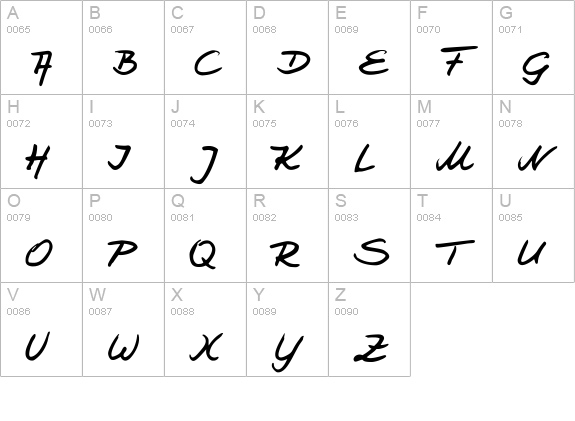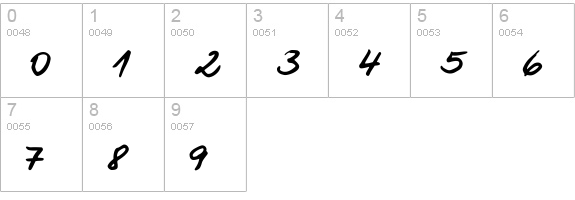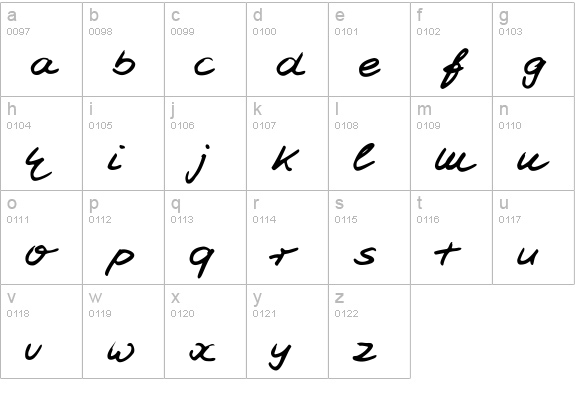
Jesco7 Handwriting Font Details
Jesco7 Handwriting font is a charming and whimsical typeface that adds a personal touch to any project. With its unique handwritten style, this font brings a sense of warmth and authenticity to your designs. Each letter is carefully crafted to create a natural and flowing look, perfect for adding a human touch to invitations, greeting cards, and more. Best of all, Jesco7 Handwriting font is available for free download at FontsMarket.com. Whether you're a designer looking to add a personal touch to your projects or someone looking to spice up their social media posts, this font is a versatile and beautiful choice. Download it now and add a touch of handcrafted charm to your designs!